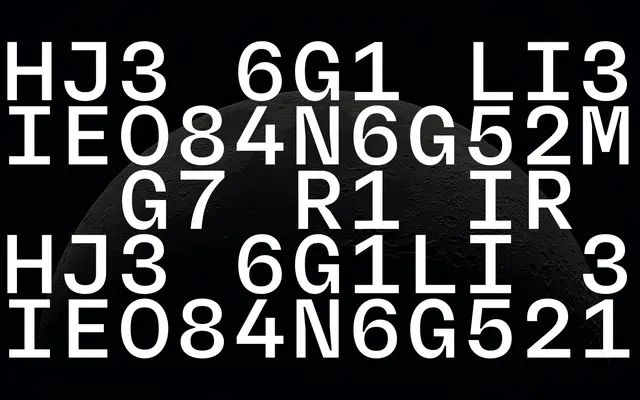
Neue Rational Mono
Neue Rational Mono specimen from Studio Rene Bieder
A fixed-width companion to the Neue Rational family, offered in four weights with italics and a generous set of OpenType alternates.
Part of Studio Rene Bieder's Neue Rational system, this monospaced variant runs from Regular to Bold with matching italics across eight styles. OpenType features include case-sensitive forms, discretionary ligatures, fractions and multiple single-character alternates for a, g, y and t, giving the designer room to adjust the texture of the face. Sits alongside Neue Rational and Neue Rational Mix as a technical companion for screen, editorial and data-heavy settings.
The typeface is explicitly monospaced, related to the Neue Rational sans-serif family, with geometric proportions and fixed-width spacing throughout all weights.